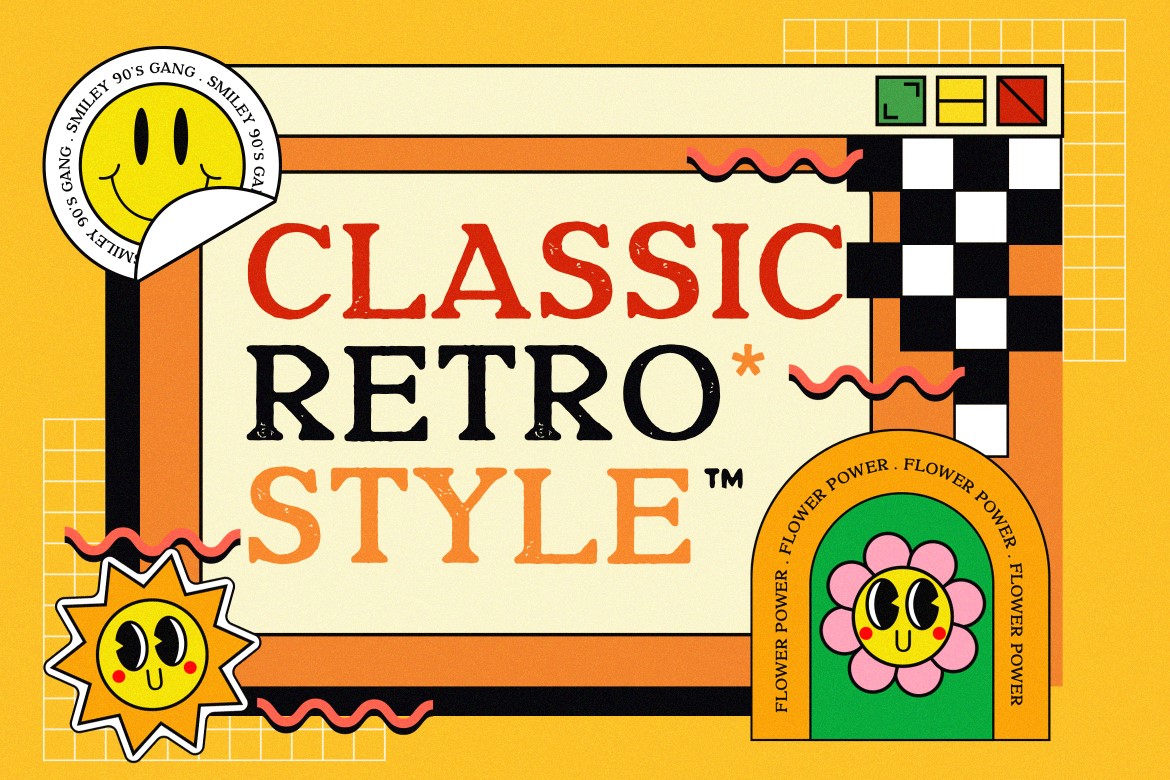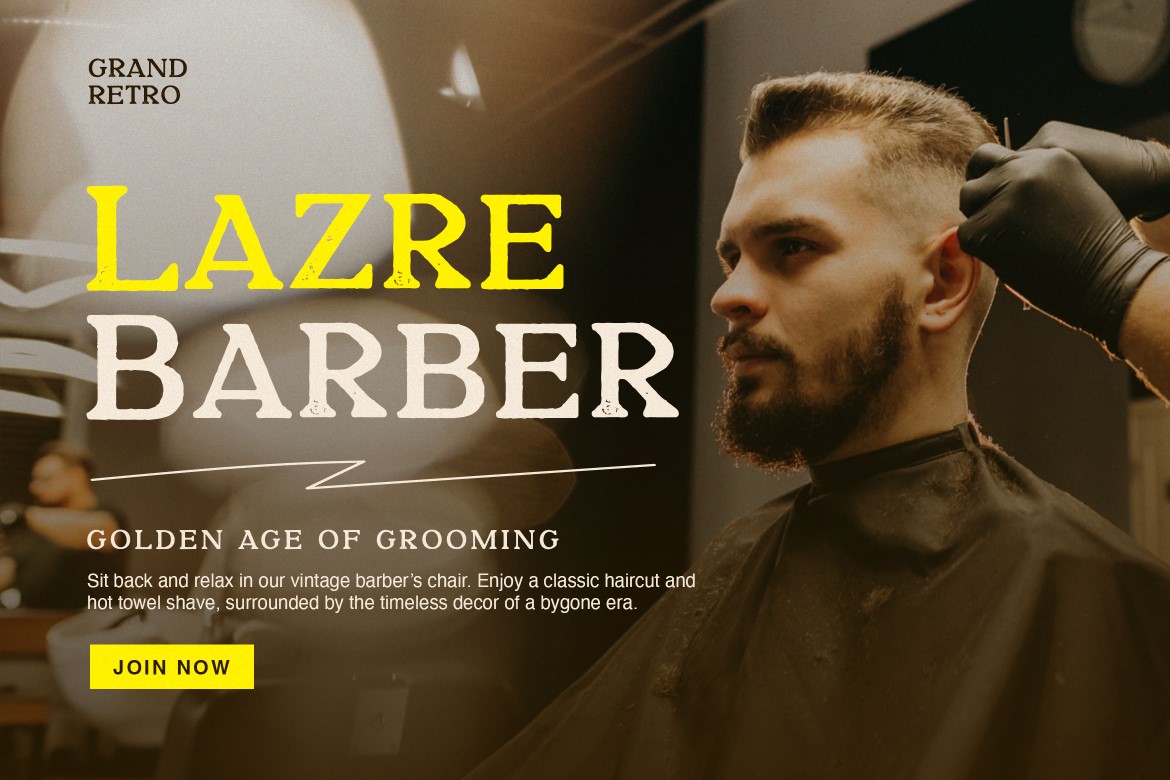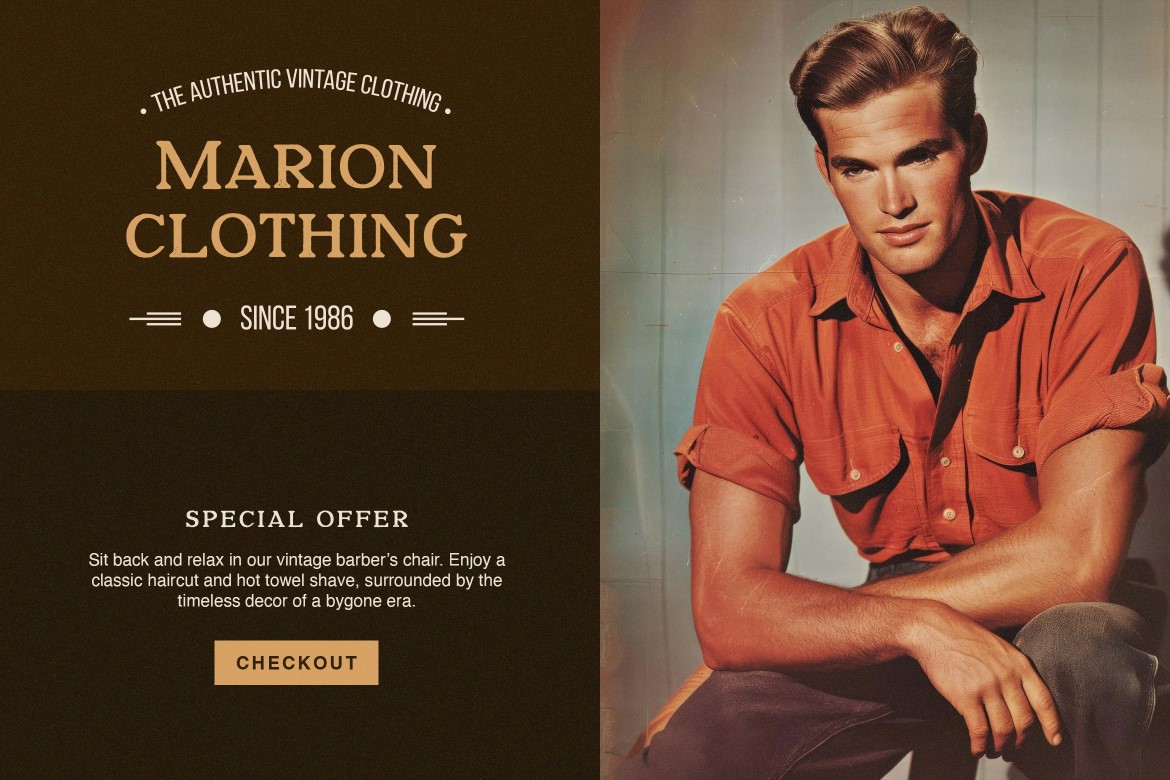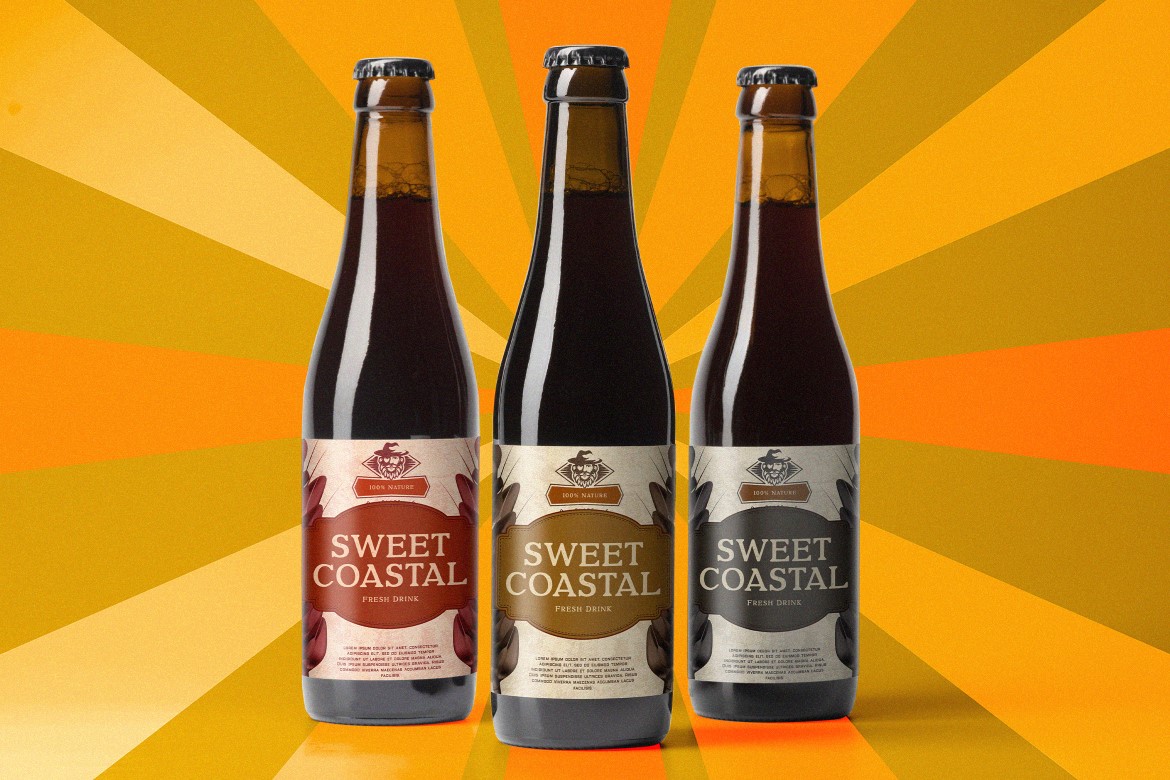
a timeless classic that embodies the charm and warmth of vintage design. This retro-inspired display font is crafted to evoke nostalgia while adding a touch of modern elegance. Perfect for creating vintage logos, packaging, posters, and other design projects that require a classic yet stylish aesthetic. Grand Retro features a grunge texture that enhances its old-school vibe, making it an ideal choice for any project that seeks to capture the essence of a bygone era with a contemporary twist.